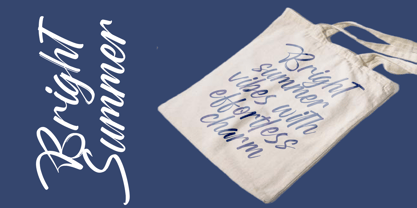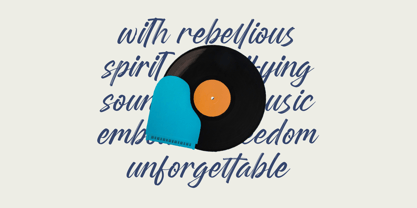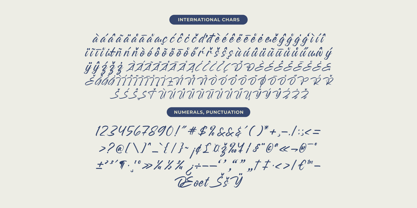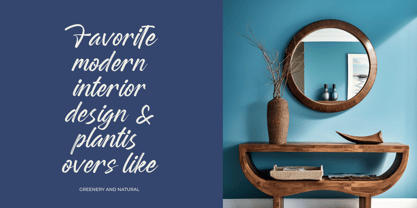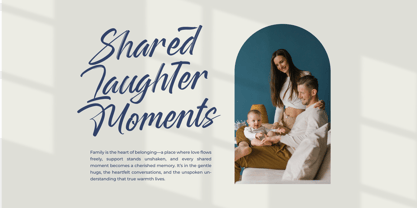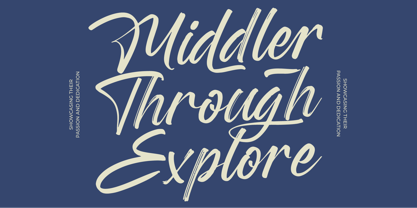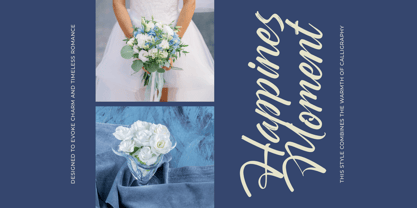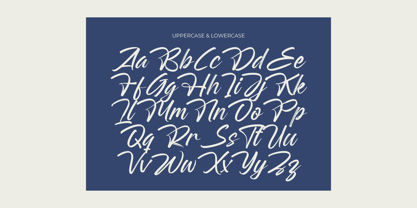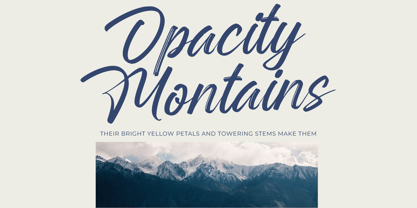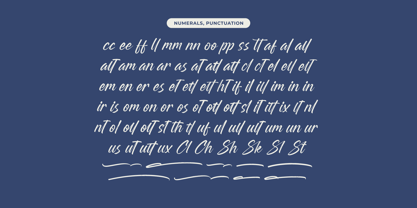
Rangdak Morattes
The Rangdak Morattes Font Family was designed by Heru Utama Putra and published by Letterena Studios. Rangdak Morattes contains 2 styles and family package options.
Rangdak Morattes - Bold Brush Type Font , from Letterena, is a Luxury Script font, suitable for any projects such as: logos, branding projects, homeware designs, product packaging, mugs, quotes, posters, shopping bags, t-shirts, book covers, name card, invitation cards, greeting cards, label, photography, watermark, special events, and all your other luxury and beautiful projects that need a Luxury Script taste.